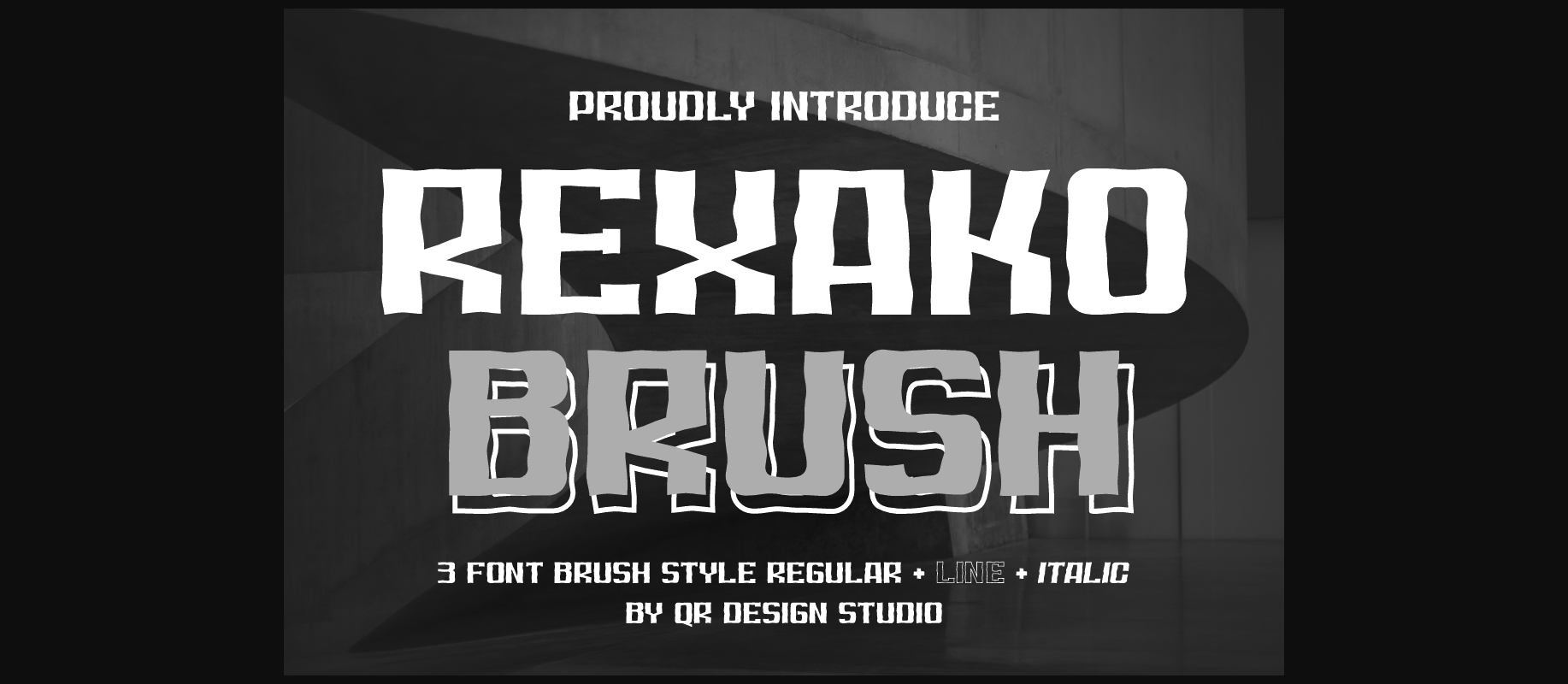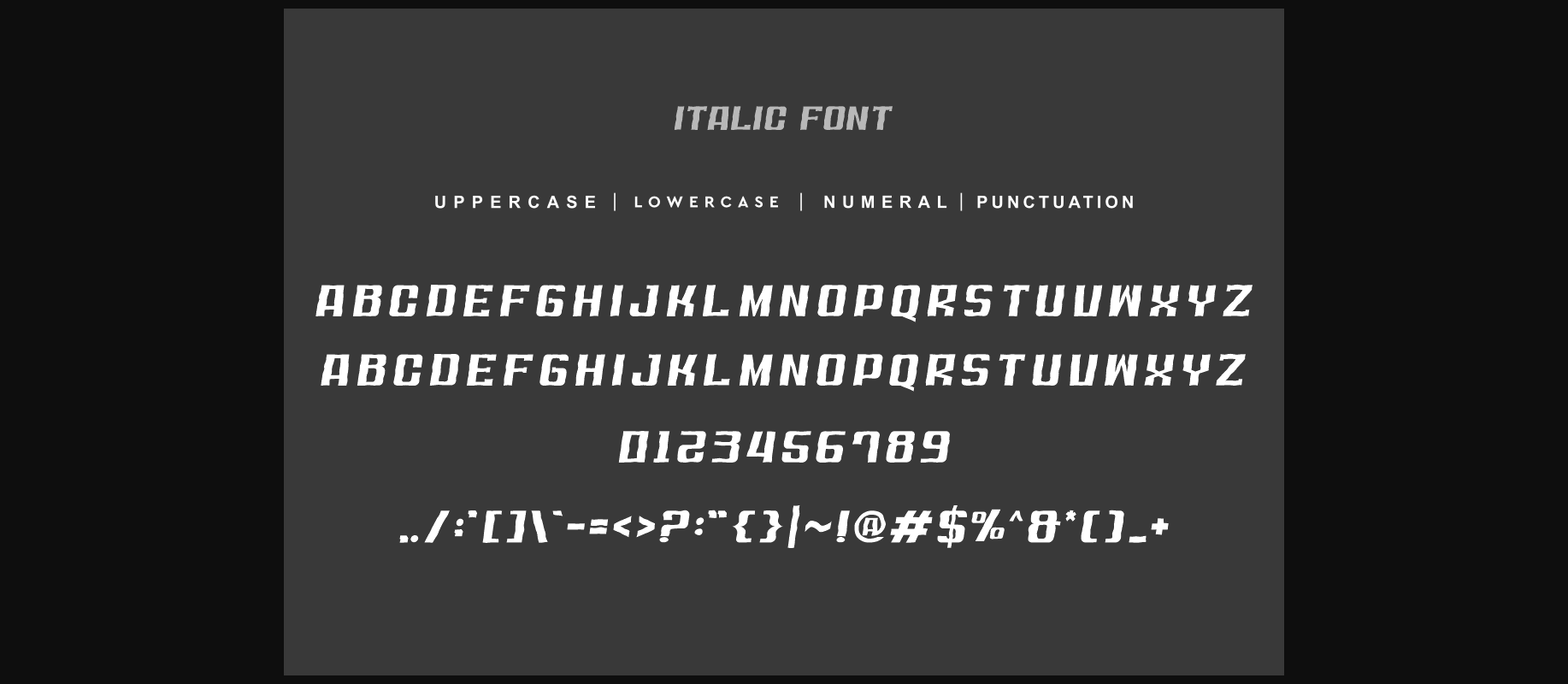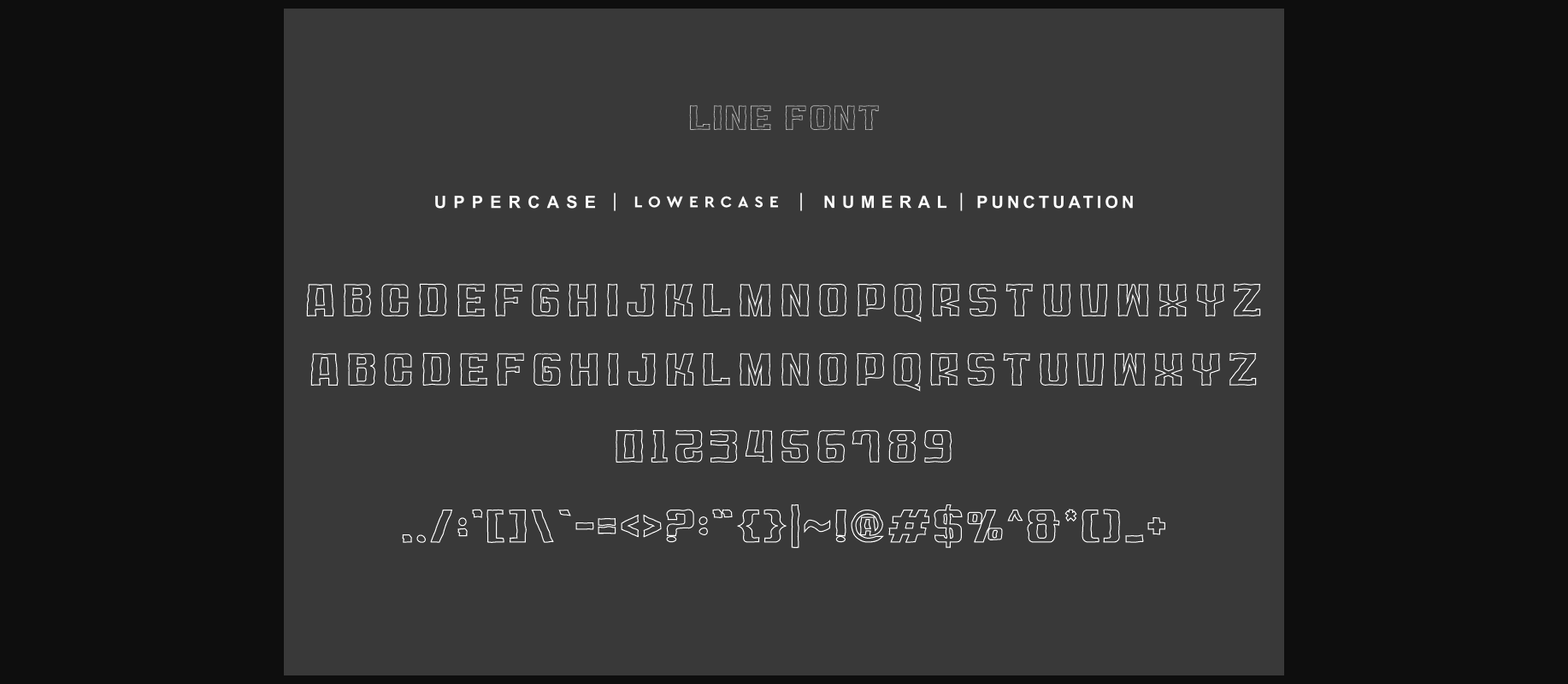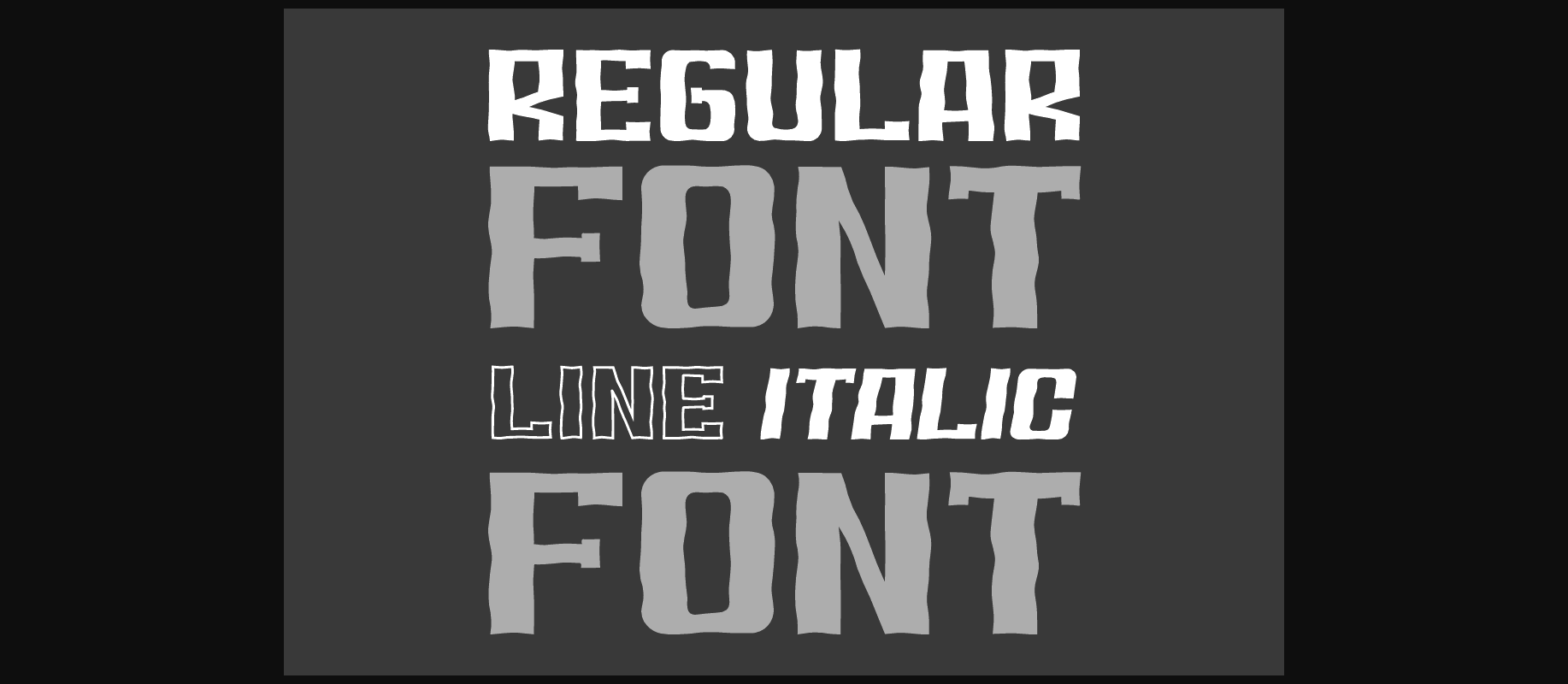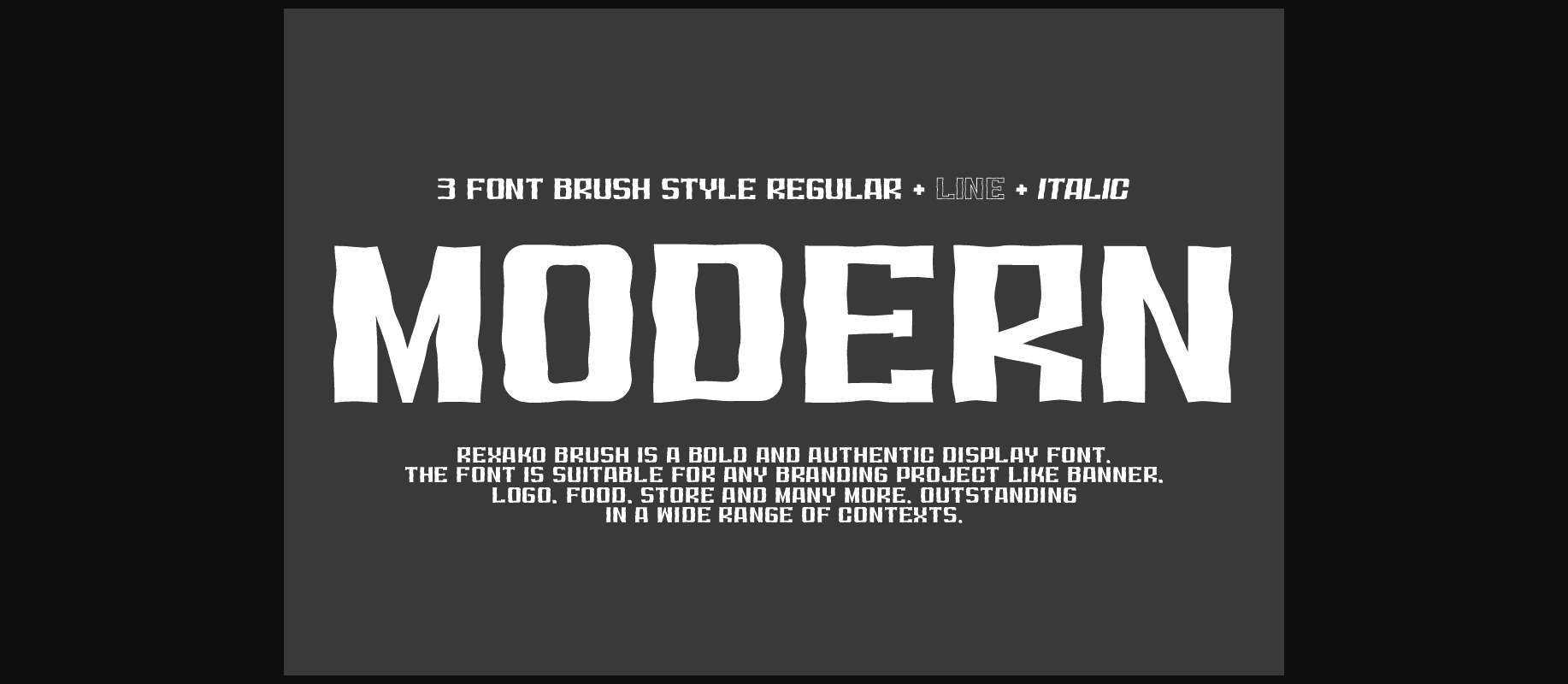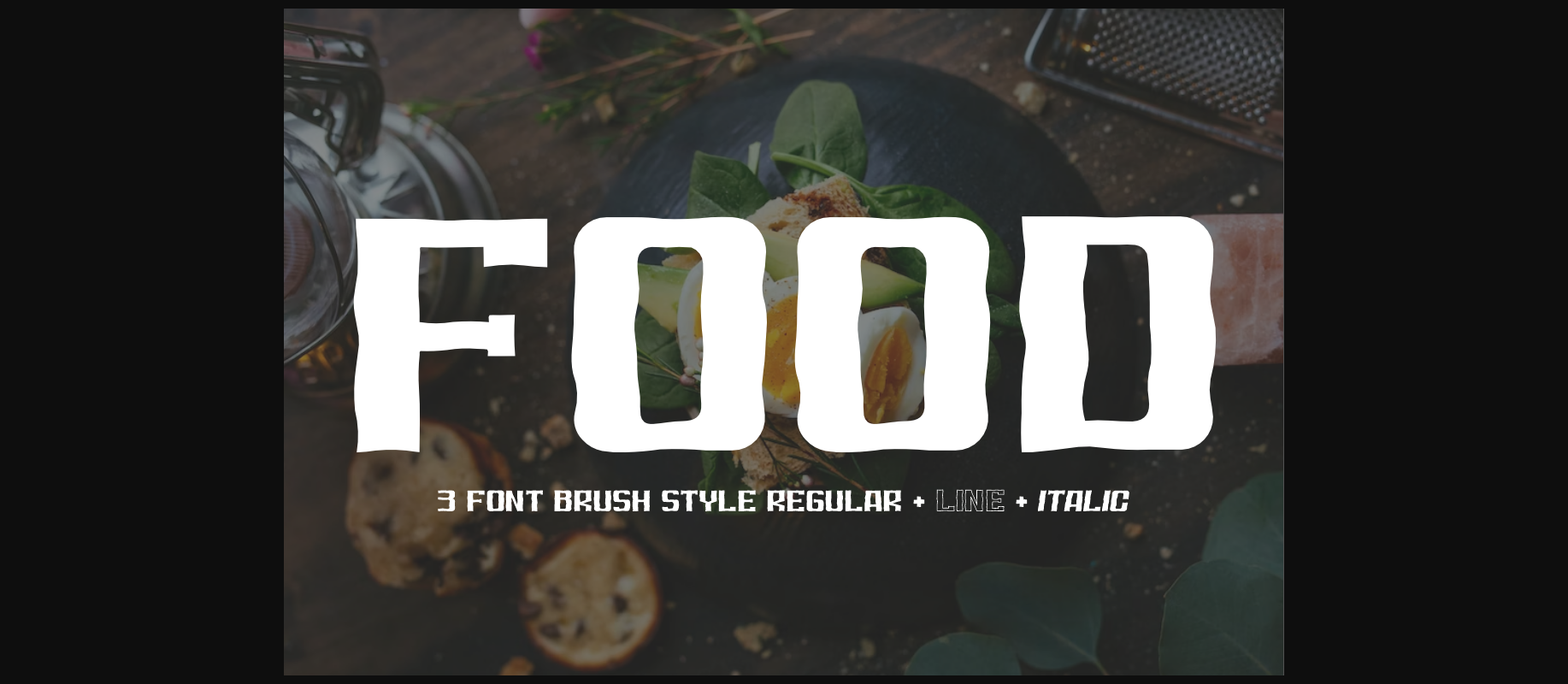
About Rexako Brush Font
Rexako Brush is a bold and authentic display font.
The font is suitable for any branding project like logos, food brands, sport related designs, social ,media and so much more.